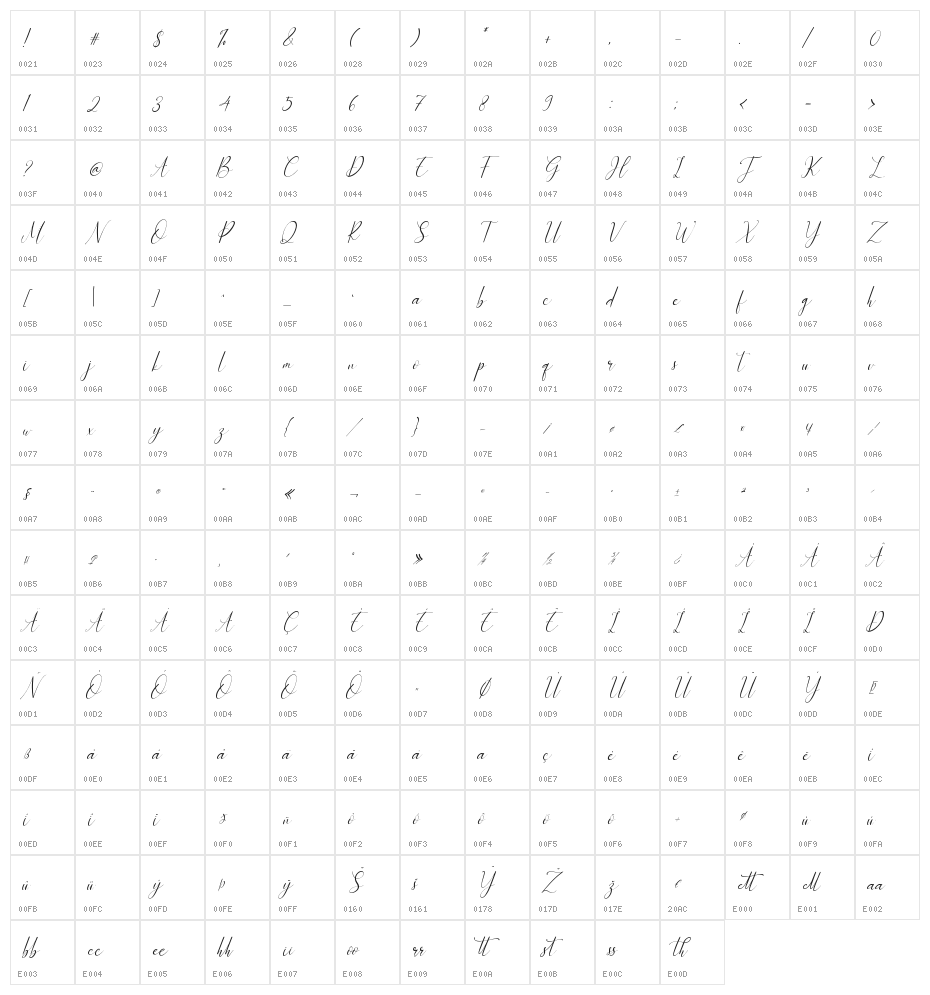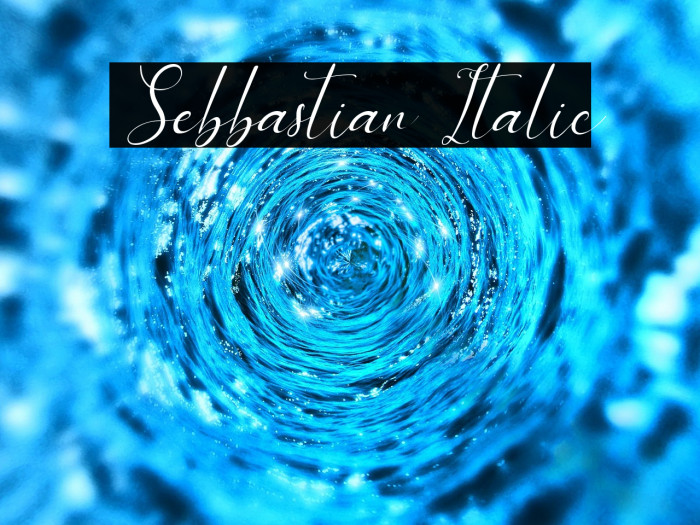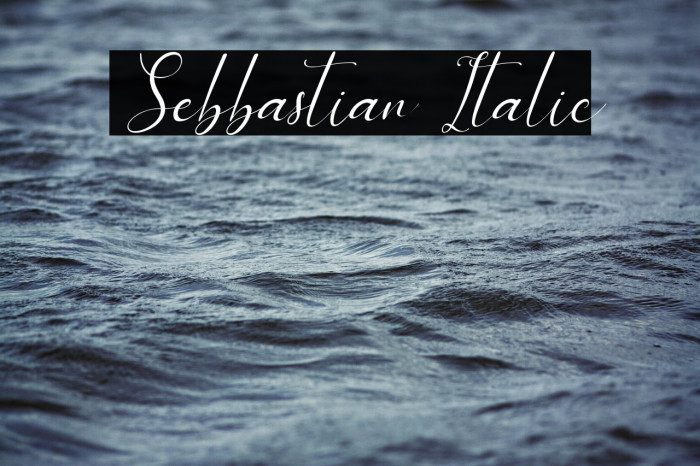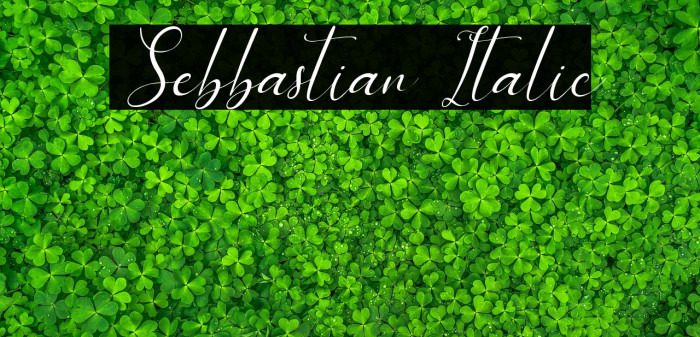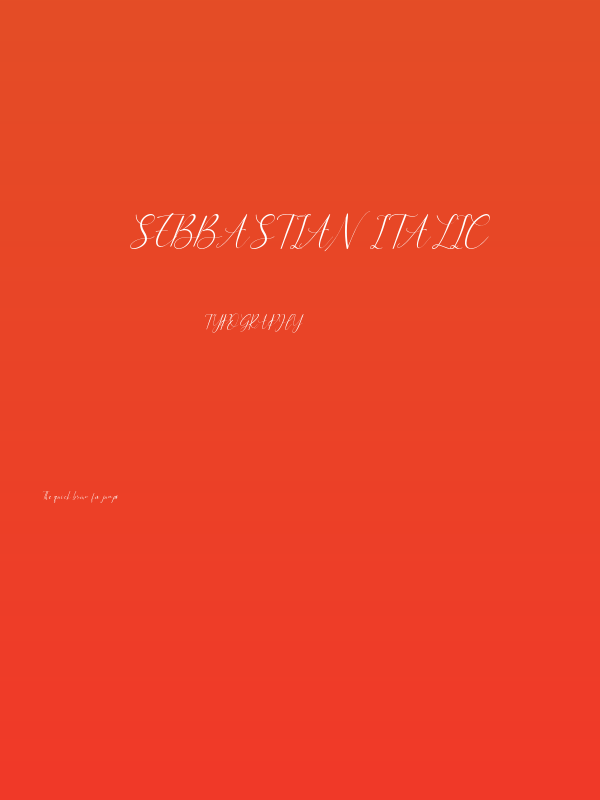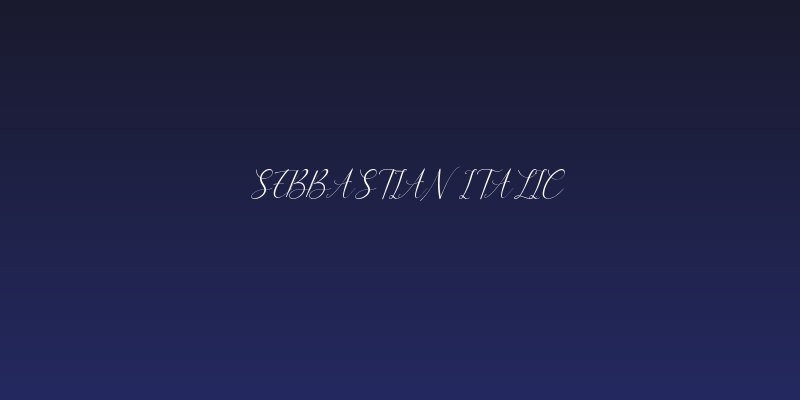
Sebbastian Italic Font
Sebbastian Italic Description
This elegant script font features a flowing, cursive style with delicate, sweeping strokes. The uppercase letters are tall and graceful, with a slight slant that adds a sense of movement and sophistication. The lowercase letters are equally refined, with smooth connections and a consistent rhythm. The numerals and special characters maintain the same fluidity, making the font versatile for various uses. The overall appearance is both classic and modern, suitable for projects that require a touch of elegance and charm.
| Overall Style | Elegant, Modern |
| Use Case | Logos, Invitations, Editorial design |
| Proposed Projects | Ideal for wedding invitations, elegant branding, and sophisticated editorial design. |